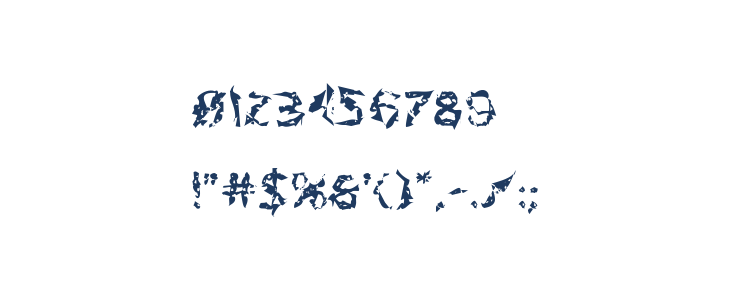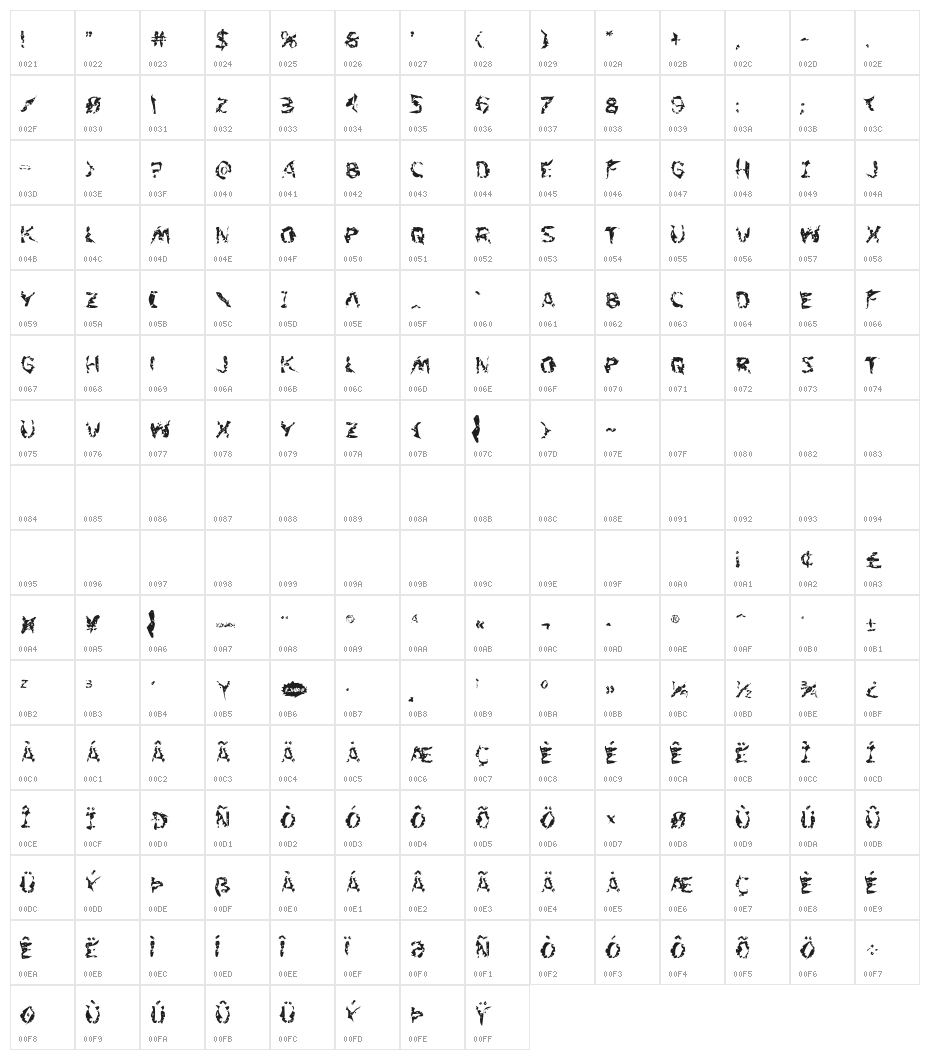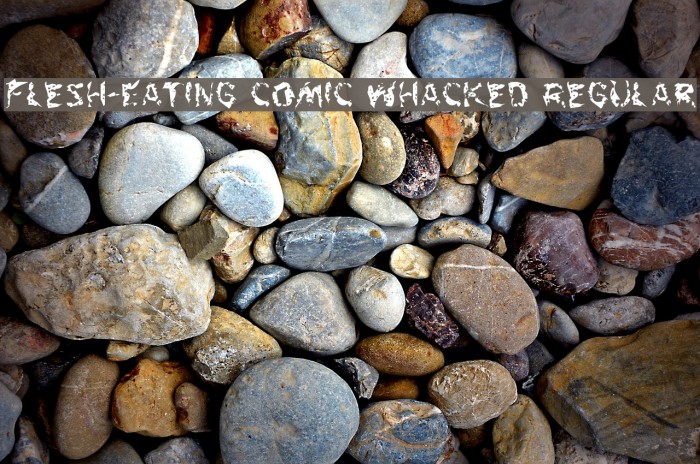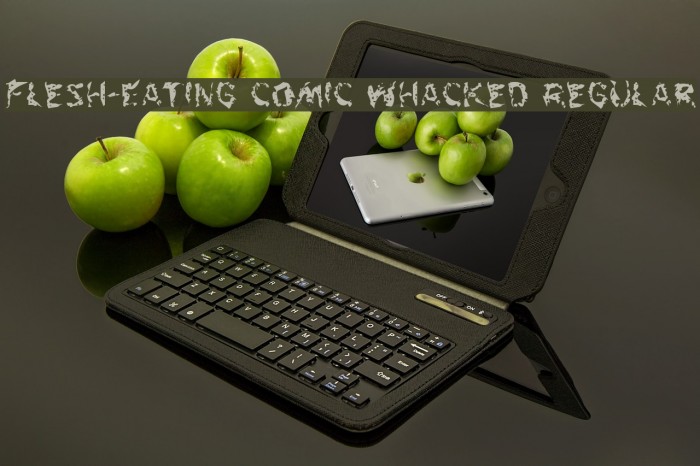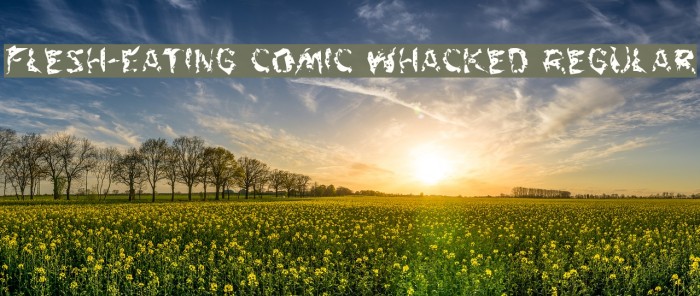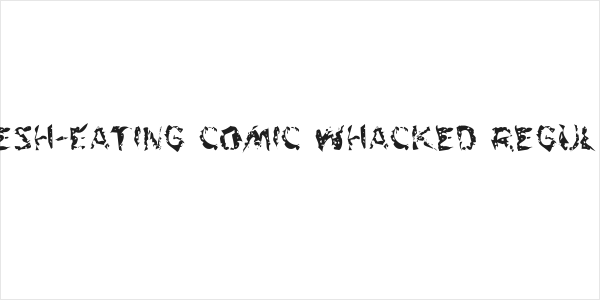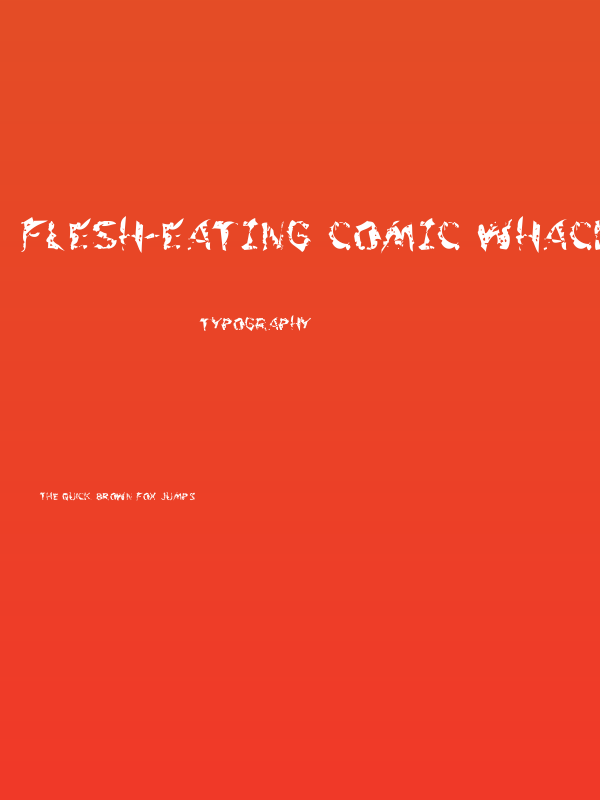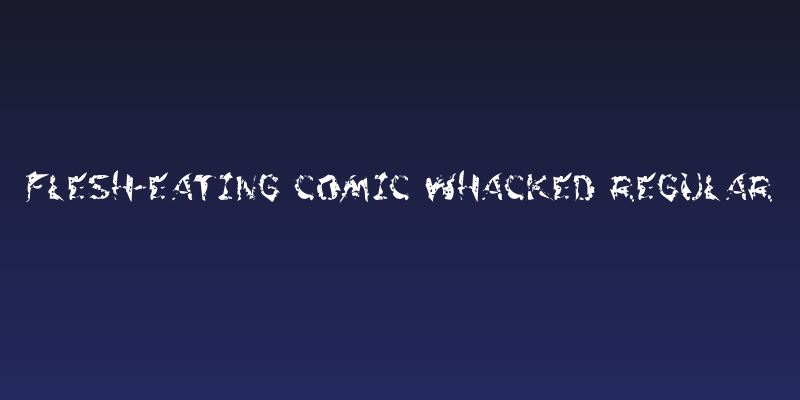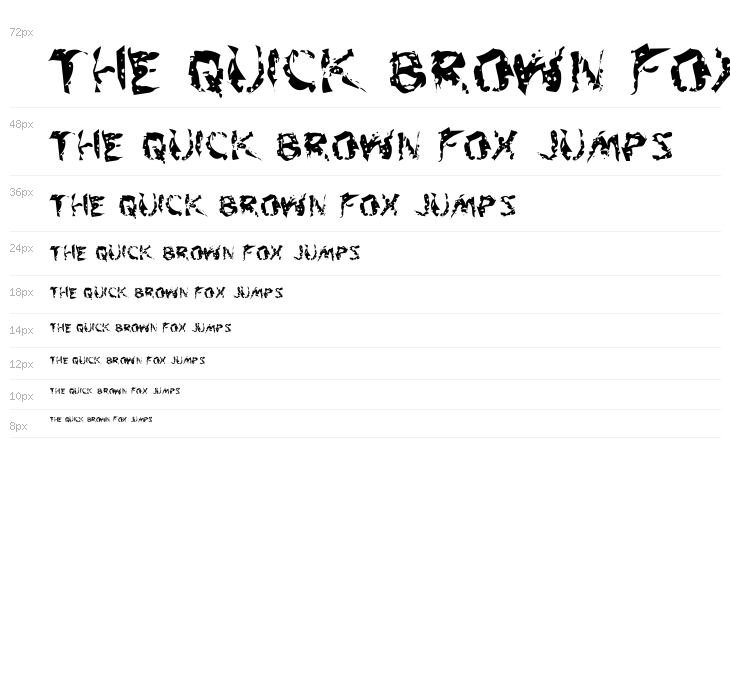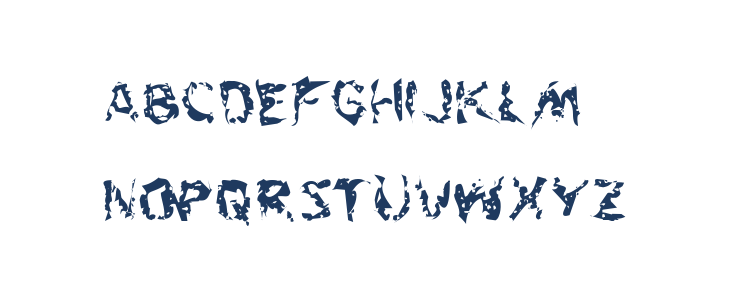
Flesh-Eating Comic Whacked Regular Font
Flesh-Eating Comic Whacked Regular Description
This font features a highly distressed and chaotic design, with each character appearing as though it has been torn or eroded. The jagged edges and irregular shapes give it a raw, edgy feel, reminiscent of horror or punk aesthetics. The uppercase and lowercase letters maintain a consistent style, with the numbers and special characters following suit. The overall appearance is bold and impactful, making it suitable for attention-grabbing designs. The font's unique style is perfect for projects that require a sense of urgency or intensity.
| Proposed Projects | Ideal for horror movie posters, punk band album covers, Halloween event flyers, and edgy graphic design projects. |